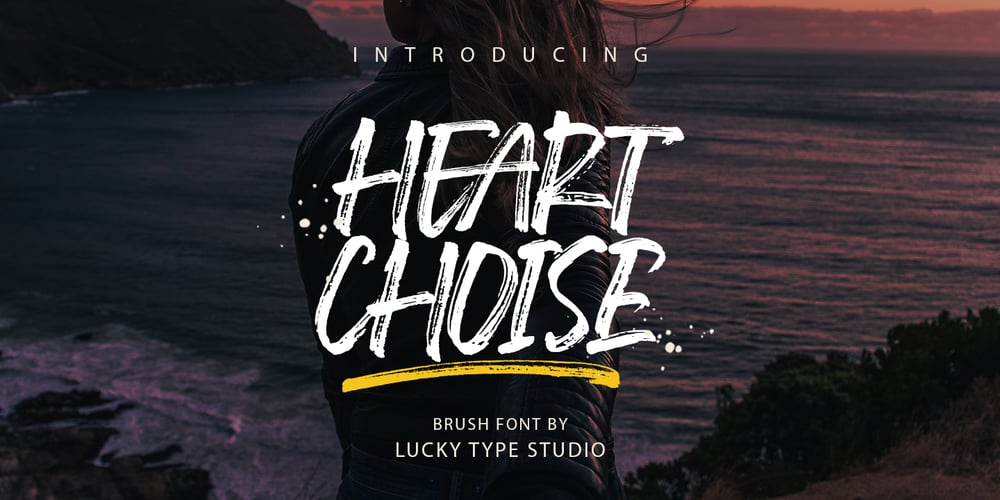
Heart Choise Font Family was designed by Muhammad Fajar and published by Lucky Type. Heart Choise contains 2 styles and family package options. Heart Choise is the newest handwriting font made with pen brush, to help you create stunning handwriting looks.Heart Choise comes with alternate characters, punctuation marks, numbers. Also included is the added bonus, perfectly crafted for headlines and short text. Use for magazines, films, t-shirts, packaging, logos, advertisements, quotes, posters, editorials, cover art, websites, etc.